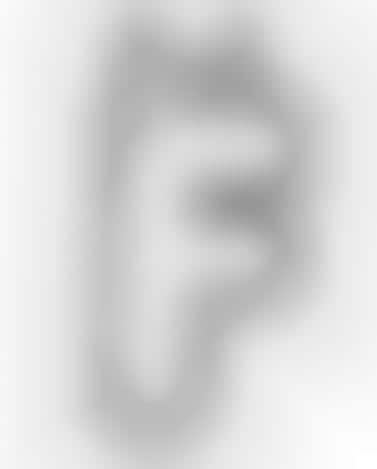
The Effing Typeface is the type of font you’d probably want to use when writing a letter to someone you love, someone you hate, someone with a dirty sense of humor, or anyone with a sense of humor. Your recipient can spend hours guessing or laughing at what each letter of this font stands for.
The only downside to the Effing Typeface, is that creators forgot about the letters, ‘k’, ‘l’ and ‘m’. Well, I have a few suggestions in mind for them, but in the meantime check out the rest of their suggestive alphabet.
Write Your Next Letter Using the 'Effing Typeface'